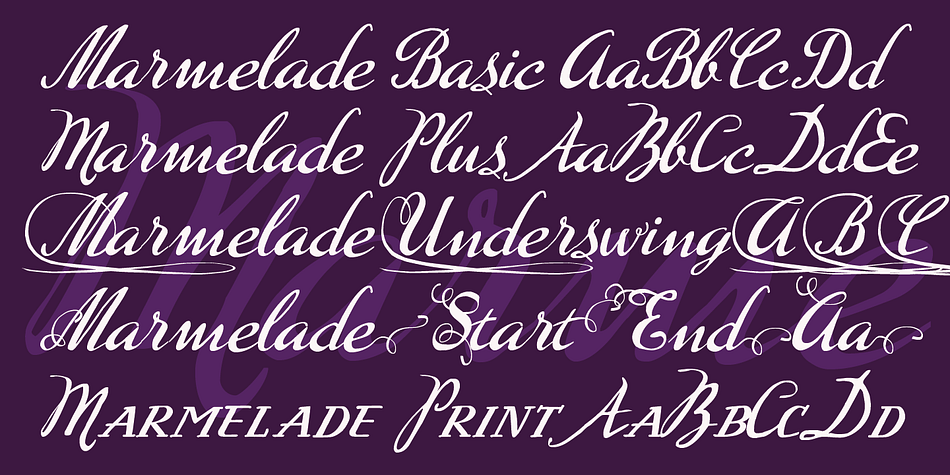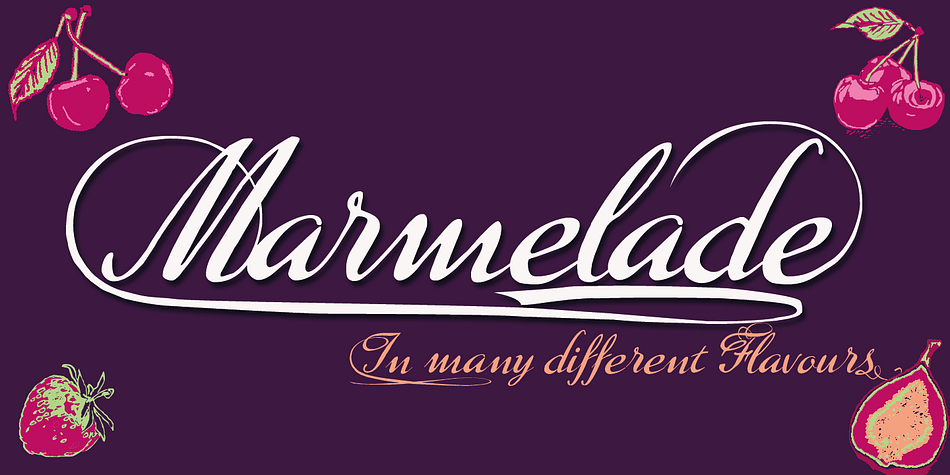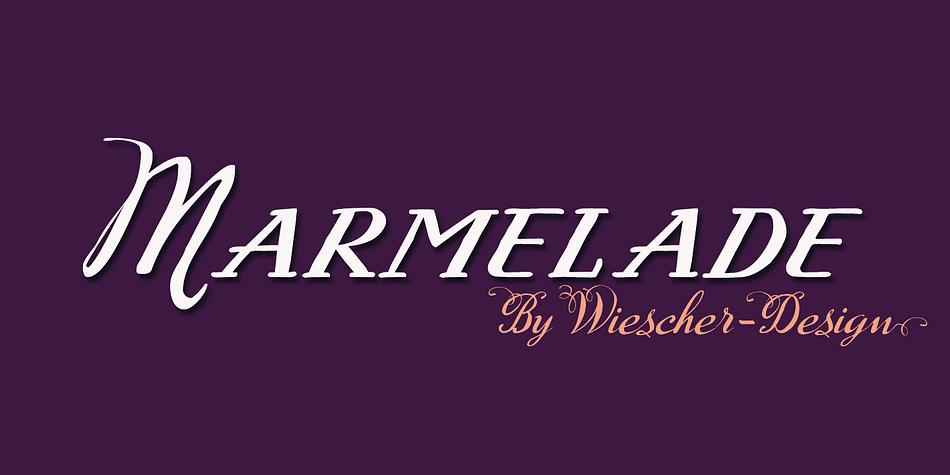
Marmelade
Designed by Gert Wiescher, Marmelade is a dingbat and script font family. This typeface has nine styles and was published by Wiescher-Design.
Marmelade is a useful script, always ready to adorn that latest jam-jelly-confiture-marmelade project.
It is a joining-script, or a script with printed small caps, whatever you like.
Marmelade comes in two different scripts Basic and Plus, and one Print set with small caps.
I added a set with Start-and-End letters as well as one set with long Underswings below the caps.
For good measure I give you three sets of ready made Words in English, French and German.
Last but not least, there is a set of Fruit sketches that come in handy for everyday jams.